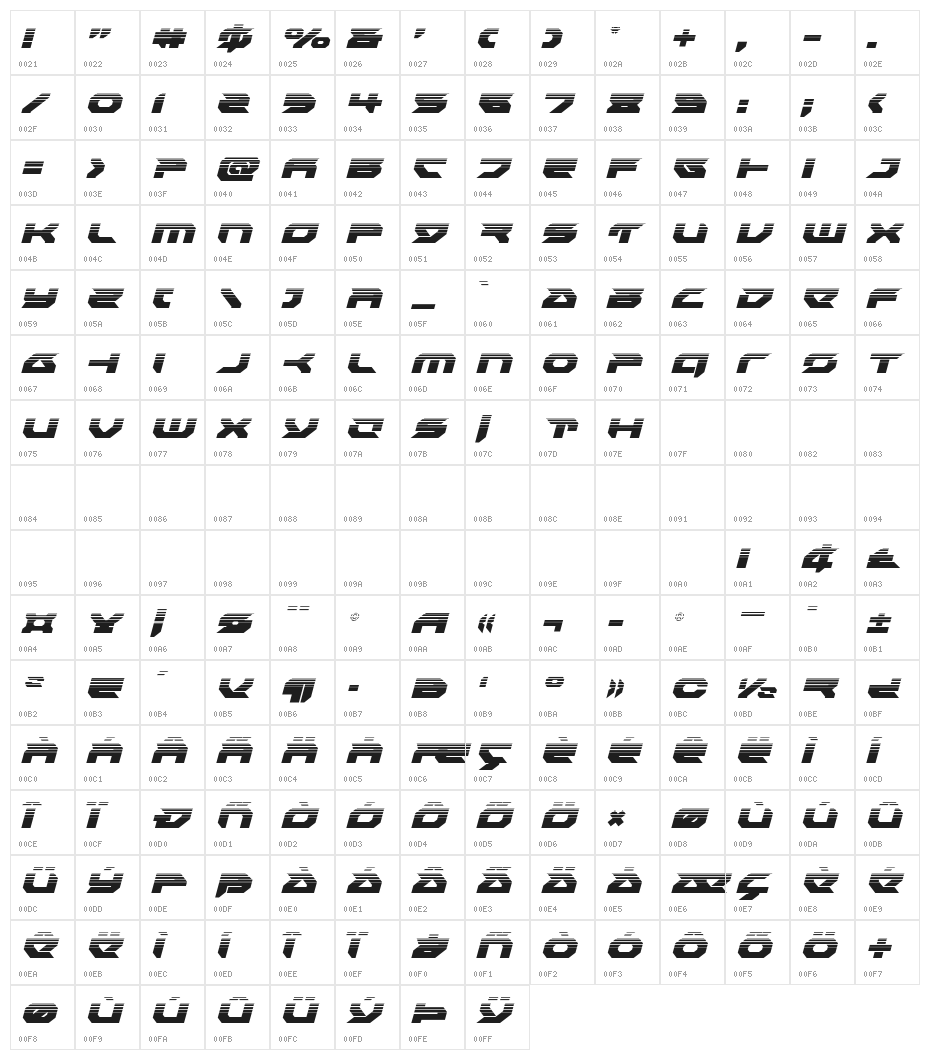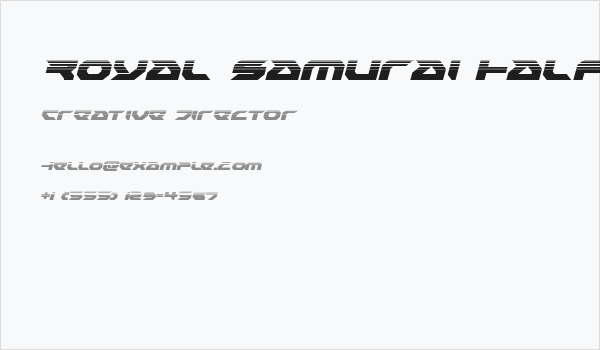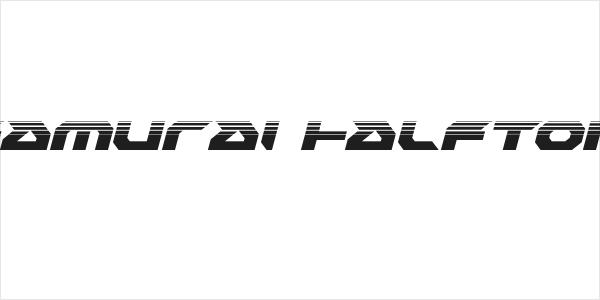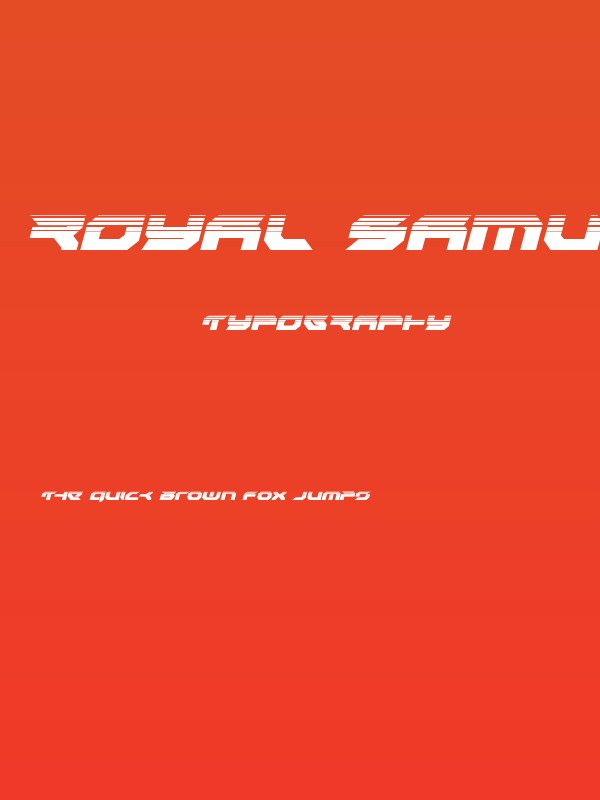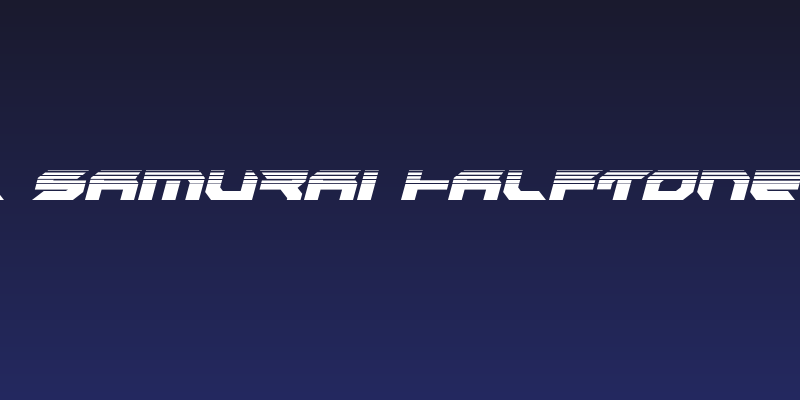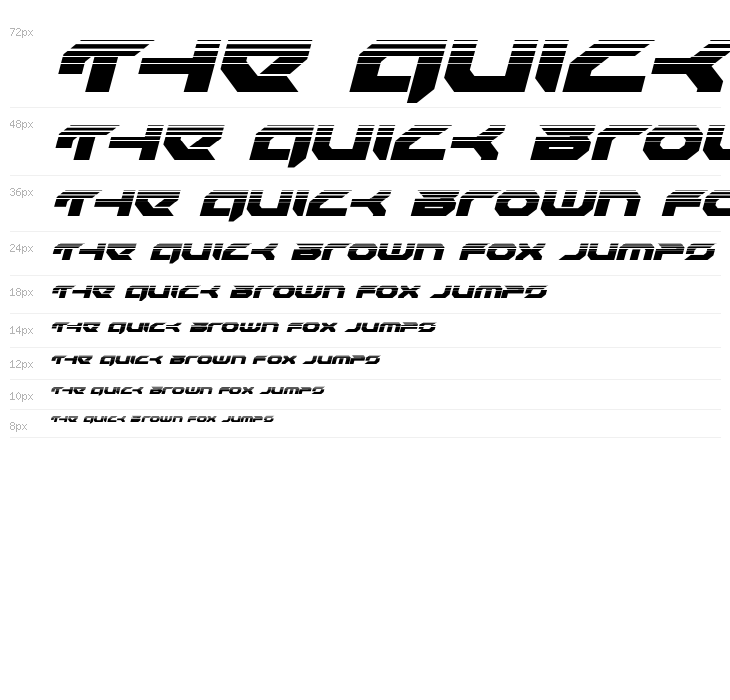
Royal Samurai Halftone Italic Font
This font features a bold, futuristic design with a distinct halftone effect that gives it a dynamic and energetic appearance. The characters are angular and geometric, with sharp edges and a sense of movement, enhanced by the italic slant. The use of horizontal lines within each character adds a unique texture and depth, making it stand out in any design. The uppercase and lowercase letters maintain a consistent style, while the numbers and special characters integrate seamlessly into the overall aesthetic. This font is ideal for projects that require a modern and edgy look.
| Proposed Projects | Ideal for sci-fi themed designs, video game titles, tech branding, and posters. |